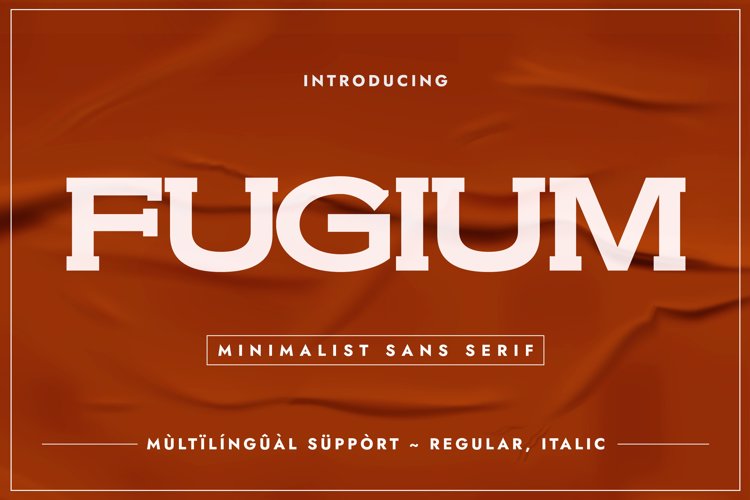
FUGIUM Font
ITALIC Regular Style
🎨 Font Name: FUGIUM by Minimalist Art Studio
🎨 Font Description: FUGIUM is a minimalist sans serif with bold clarity and quiet strength, ideal for branding, editorial, and modern lifestyle design.
✔ Complete Latin set + multilingual diacritics
✔ Alternates, stylistic sets & ligatures
✔ Numbers, small caps, and extended punctuation
✔ Bonus italics and family styles